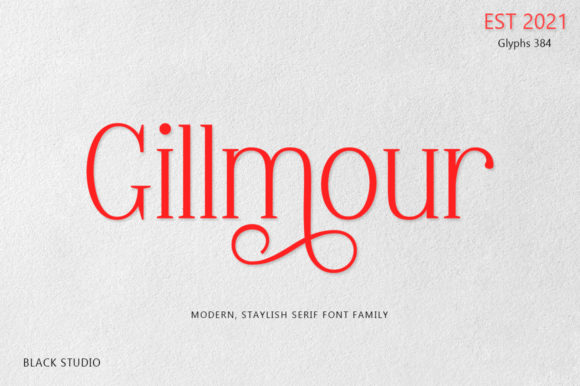
Gillmour: The Elegant Serif Font for Handmade Brands
The morning light was just hitting my workbench when I opened the design file for a new batch of soy candle labels. I had the wax poured and the jars cleaned, but something felt missing from the digital mockup. The script font I usually reach for felt too casual for the lavender and linen scent profile I was aiming for, and the bold sans serifs I use for my summer collections looked too industrial. I needed a typeface that whispered elegance without shouting for attention. That is when I started testing Gillmour.
As soon as I typed out the product name, the difference was immediate. Gillmour is an elegant and authentic serif font that strikes a perfect balance. It is not too thin to disappear on a small sticker, nor too thick to look clunky on delicate stationery. This balanced and varied character makes it an incredible tool for enhancing the beauty of handmade projects. For a crafter or small shop owner, finding a font that feels both professional and personal is often the hardest part of building a brand identity, but this font delivers that charm effortlessly.
Bringing Warmth to Product Labels and Packaging
One of the most practical uses for Gillmour in a handmade business is product labeling. Whether you are creating boutique tags for clothing, stickers for soap bars, or full-wrap labels for candles, the visual personality of this font adds a layer of perceived quality. When a customer picks up a product, the typography is often the first thing they notice before they even read the words.
I recently used it for a line of holiday gift tags. The serif details give it a classic, timeless feel that works beautifully for seasonal products. Unlike some display fonts that can be hard to read at smaller sizes, Gillmour maintains its clarity. This is crucial for packaging design where ingredients lists or care instructions need to be legible while still looking stylish. By using this font, my packaging stopped looking like a hobbyist experiment and started resembling something you would find on a high-end boutique shelf.
The versatility extends to various materials as well. I tested it on kraft paper, glossy vinyl, and matte cardstock. On the textured kraft, the sharp edges of the serifs held up well against the grain, while on the smooth vinyl, the ink saturation looked rich and even. For anyone selling physical merchandise, having a font that translates well across different printing methods is a game-changer for maintaining brand consistency.
Elevating Wedding Stationery and Invitations
Beyond physical goods, Gillmour shines in the world of wedding stationery and invitation design. Couples today are often looking for a middle ground between modern minimalism and traditional romance. This font sits perfectly in that sweet spot. I designed a set of wedding welcome boards using Gillmour for the main headings, and the result was sophisticated yet approachable.
When working on invitations, the weight of the letters matters immensely. Gillmour offers a stroke width that feels substantial enough to command respect but light enough to feel airy and celebratory. It is excellent for:
- Couple names on save-the-dates
- Date and location details on formal invites
- Menu cards for reception tables
- Place cards and seating charts
- Thank you notes included in the suite
For invitation designers, the emotional appeal of a typeface cannot be overstated. Gillmour evokes a sense of tradition and care, which helps set the tone for the entire event. It tells the guest that this is a special occasion before they have even opened the envelope.
Perfect Pairings for Modern Typography
While Gillmour is stunning on its own as a display font, its true potential is unlocked when paired with other typefaces. In my shop, I rarely use just one font for an entire design. For product labels, I often pair Gillmour with a clean, geometric sans serif font for the body text. This contrast creates a hierarchy that guides the customer's eye naturally from the brand name down to the product details.
If you are designing greeting cards or printable wall art, try pairing it with a delicate script font or a casual handwritten font. The structured nature of the serifs in Gillmour grounds the fluidity of a script, preventing the design from looking messy. For example, using Gillmour for the word "Joy" and a loose script for "to the World" on a holiday sign creates a dynamic and engaging composition. This technique is also highly effective for logo design, where you might want a strong, memorable brand name supported by a softer tagline.
Practical Tips for Cutters and Printables
For those of us using cutting machines like Cricut or Silhouette, readability is key. Because Gillmour is not too thin, it cuts cleanly out of adhesive vinyl without the tiny bridges breaking apart, which is a common frustration with delicate serif fonts. This makes it a reliable choice for stickers, decals for mugs, and iron-on designs for tote bags and shirts.
When preparing files for digital downloads or printable planners, always check the spacing. Gillmour has generous letter spacing by default, which aids readability on screens and in print. However, if you are using it for very small text on a planner page, you may want to adjust the tracking slightly to ensure the letters do not crowd each other. Always preview your designs at 100% scale before sending them to the printer or uploading them as design assets for sale.
In the end, choosing the right font is about more than just aesthetics; it is about communication. Gillmour communicates quality, care, and authenticity. It transforms a simple label into a brand statement and a plain invitation into a cherished keepsake. For makers and sellers looking to refine their visual language, this serif font is a trustworthy companion that grows with your business, adapting to everything from farmhouse signs to luxury packaging.